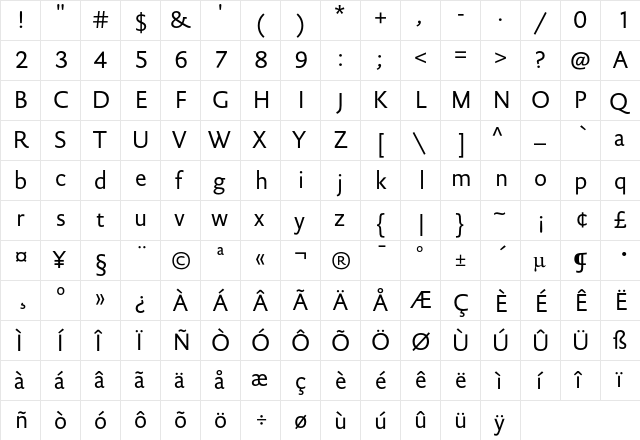
DTL Documenta Sans T Regular
Design Context for DTL Documenta Typeface
DTL Documenta offers clean, dependable letterforms without strong stylistic allegiance, making it a practical choice for designers who need flexibility.
Pro Tip: Use DTL Documenta in both headline and body roles to test its range before committing to a single application.